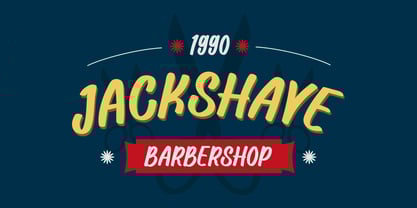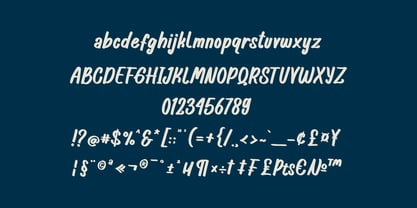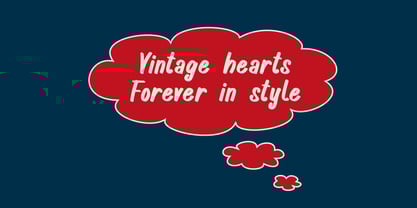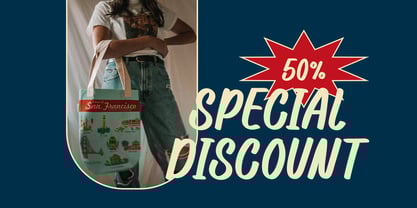
Oldstonian
by Bluestype Studio
The Oldstonian Font Family was designed by Jefri Dwi Alfatah and published by Bluestype Studio. Oldstonian contains 1 styles. More about this family
Oldstonian is a bold and charismatic typeface that blends the raw, hand-painted texture of a brush font with the clean structure of a sans serif. Designed with a nostalgic vintage touch, Oldstonian brings character and authenticity to any design it graces.
Perfectly imperfect, each letter carries a handcrafted feel that makes your text stand out while remaining easy to read. Whether you're crafting a retro-inspired logo, a rustic label, or eye-catching social media graphics, Oldstonian delivers both strength and style.